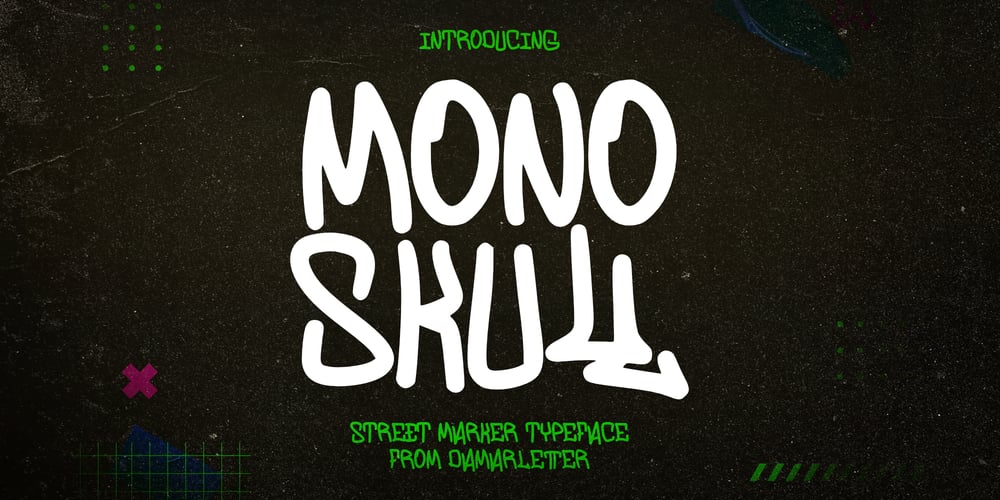
Monoskull
Monoskull font
Monoskull Font Family was designed by Ardian Nuvianto and published by Ardian Nuvianto. Monoskull contains 1 styles and family package options. Monoskull is a chic street marker typeface. Its stylish ligatures make this font the perfect match for any project.This font is consisting of a fashionable style street marker make looks natural and touch of stylish.This font was created to look as close to a natural handwritten script as possible.It is perfect for branding projects, logos, wedding designs, social media posts, advertisements, product packaging, product designs, label, photography, watermark, invitation, stationery and anything that you want.This font is PUA encoded which means you can access all of the amazing glyphs and ligatures with ease!